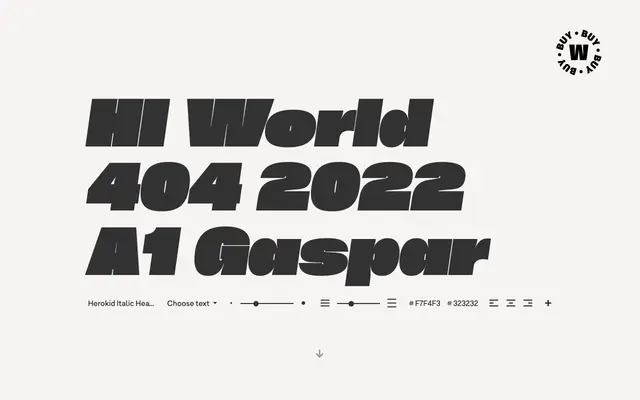
Herokid
W Type Foundry · Gaspar Muñoz · 2022
A grotesque sans spanning eight weights and six widths from UltraCondensed to Expanded, with a full italic counterpart across all 98 styles.
Inspired by Helvetica, Impact and Univers, this large grotesque family by Gaspar Muñoz covers an unusually broad width range alongside eight weights, making it practical for work that demands typographic contrast within a single family. Heavier weights feature tight counterforms suited to large display headlines, while the regular and lighter cuts are intended for body copy. A variable font is included alongside the 98 static styles, and a complete family licence is available at USD 189.
Described explicitly as a grotesque style font inspired by Helvetica, Impact and Univers, placing it firmly in the grotesque sans-serif tradition with an unusually wide range of width variants.